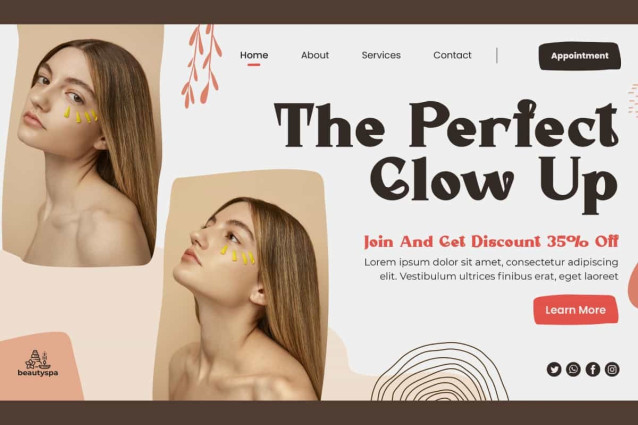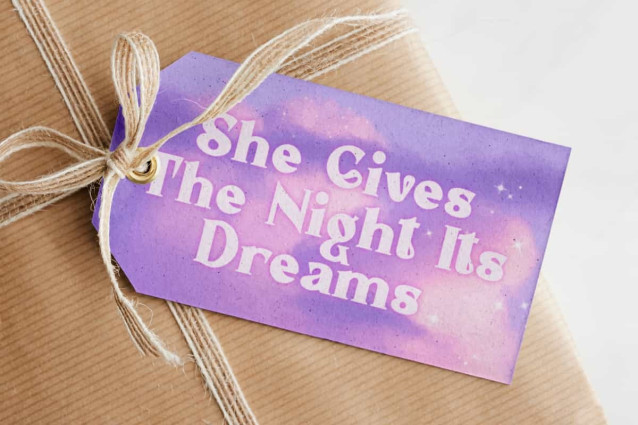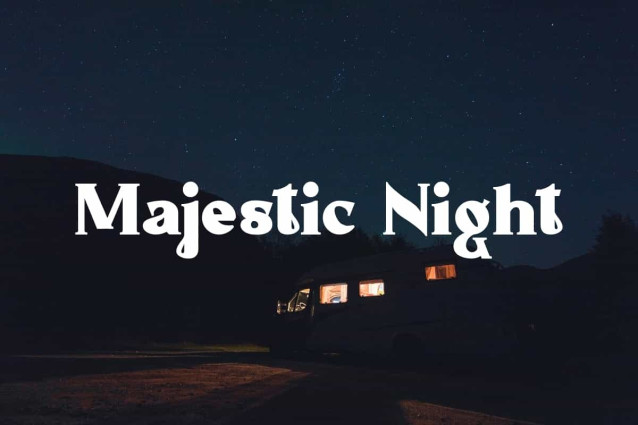
Majestic Night Font
Majestic Night Font is a charming serif display font, creating a blend of elegance and a distinctive classic feel. This font has a unique character with interesting details, making it a perfect choice for a variety of design concepts, such as branding, brochure, label, logo design, magazine cover, mockup template, packaging, poster, quote, signage, stationery, website, and more!
Majestic Night Font includes a complete set of Uppercase and Lowercase Basic Characters, Numbers, Punctuation, and Symbols. This font is beautifully designed and fits perfectly, making it an ideal choice for a variety of industries, such as advertising, beauty product, boutique, cafe, craft, event or wedding organizer, photography, real estate, restaurant, spa, travel, and so on.